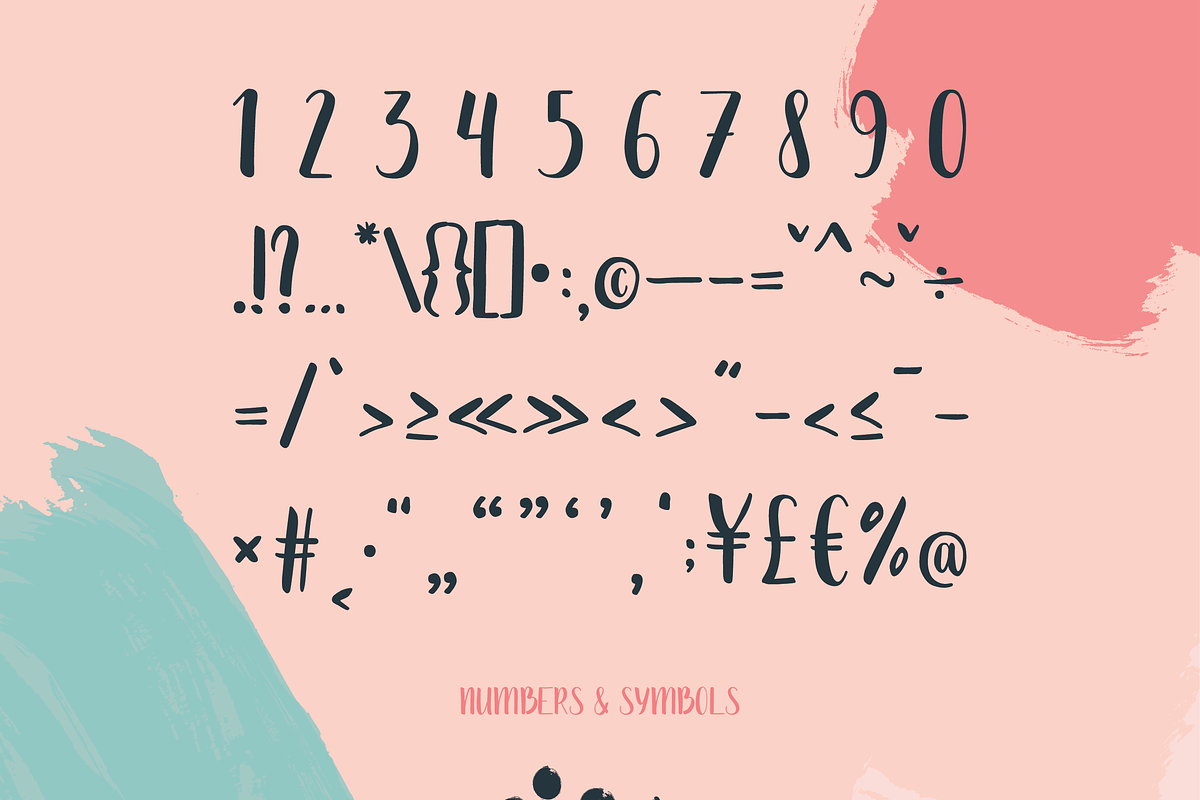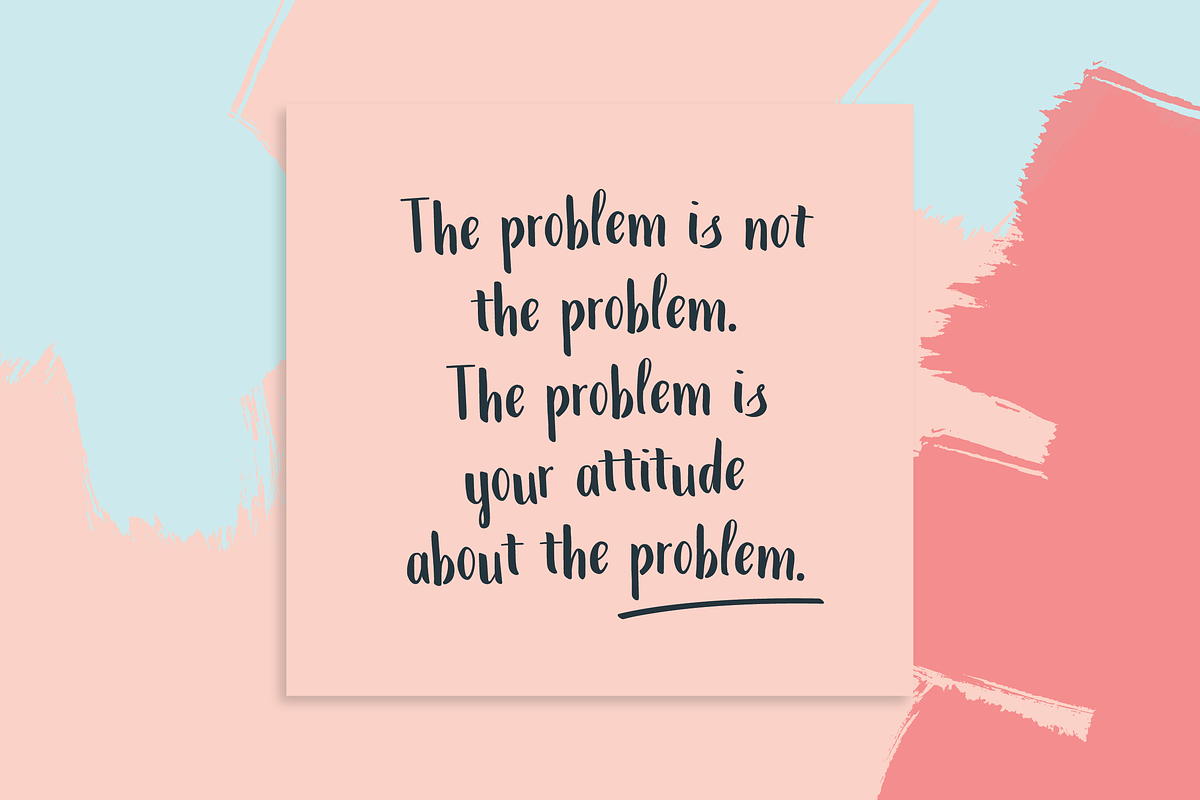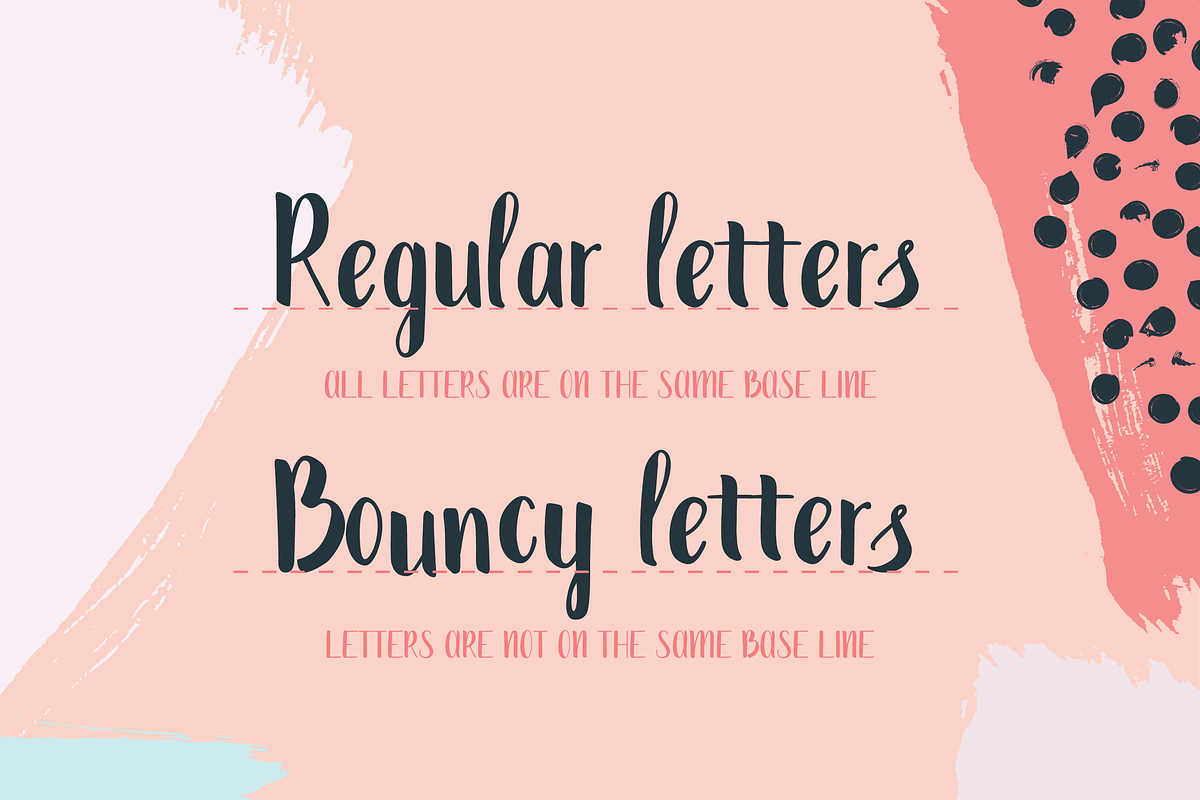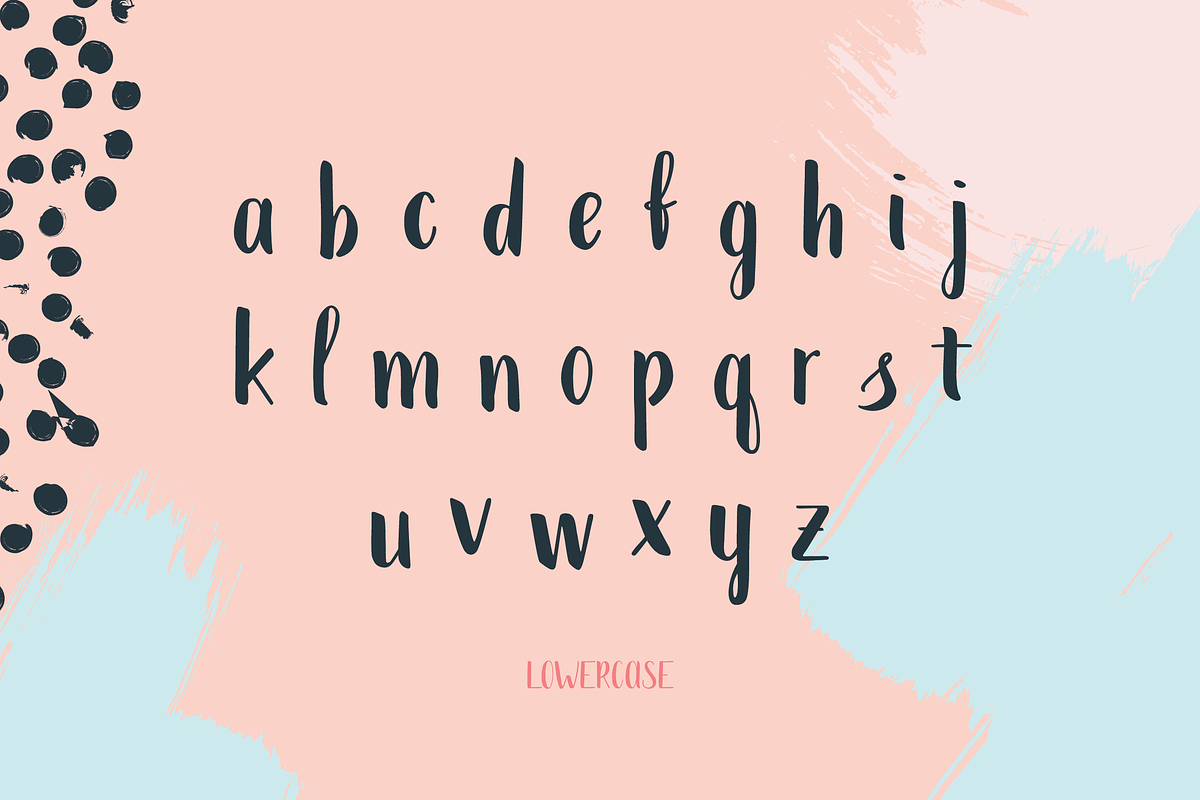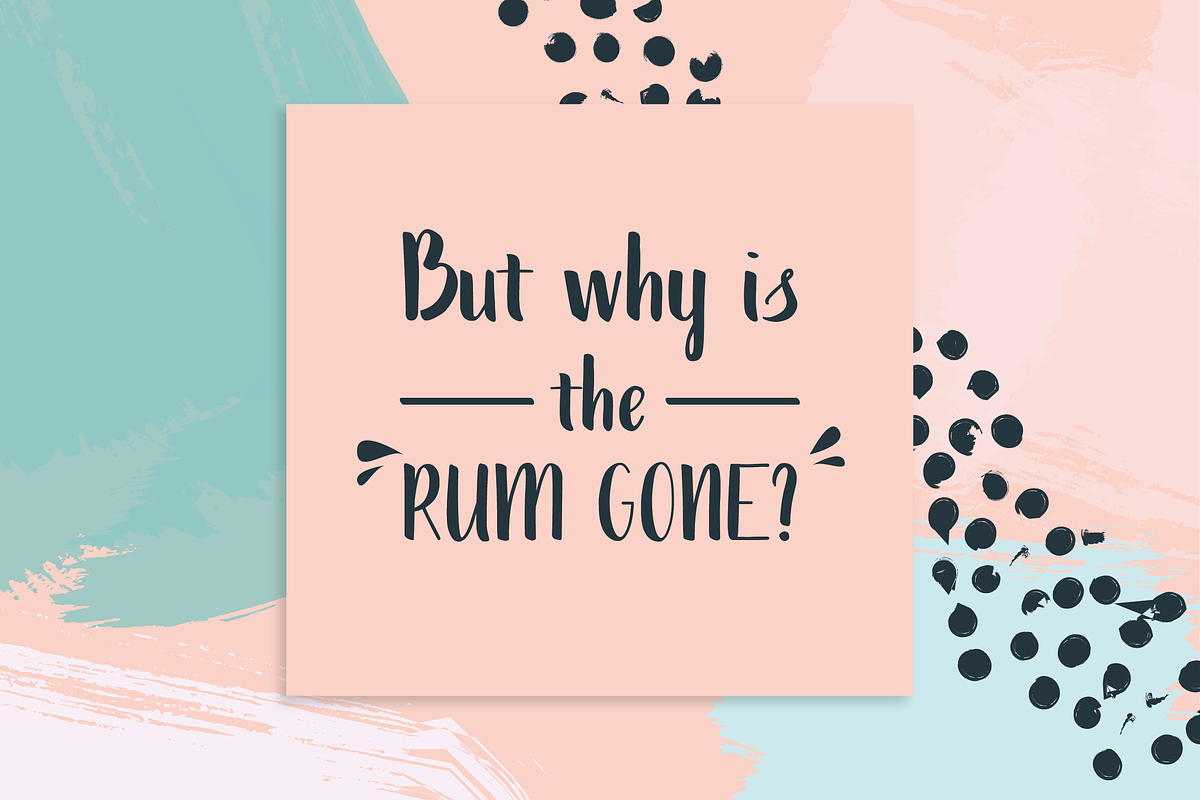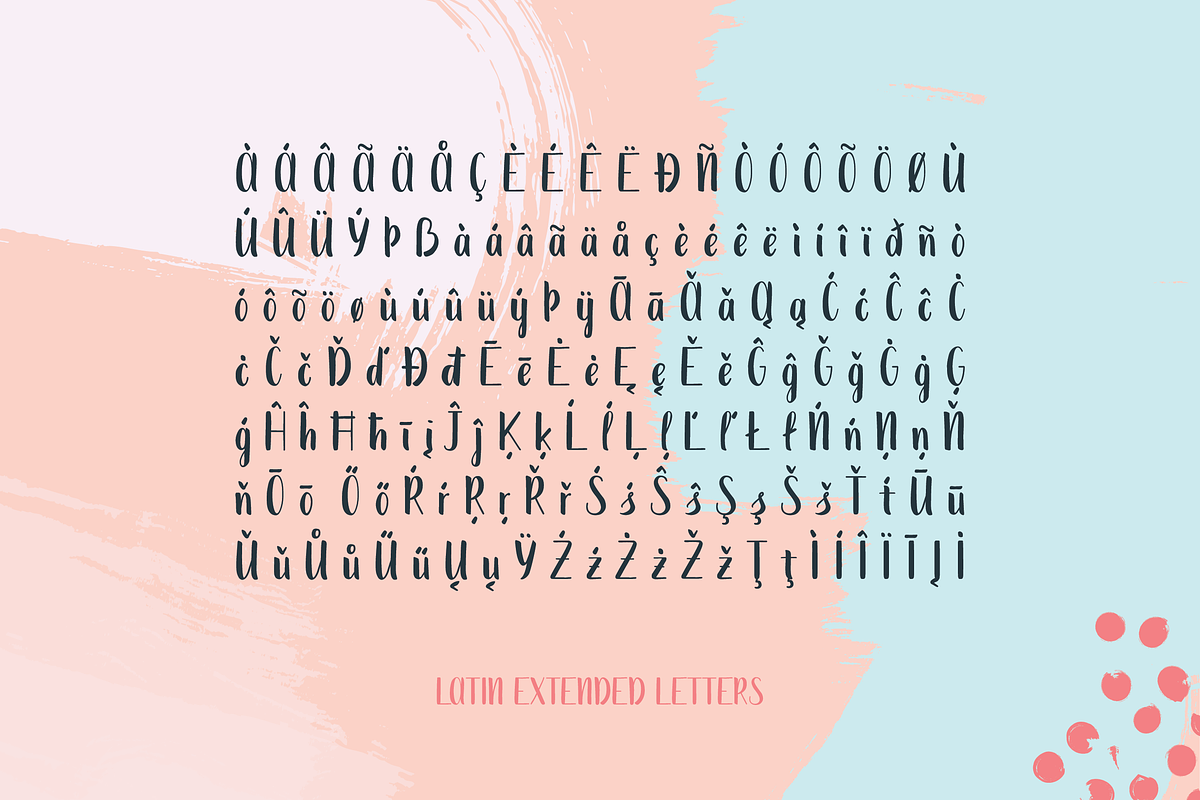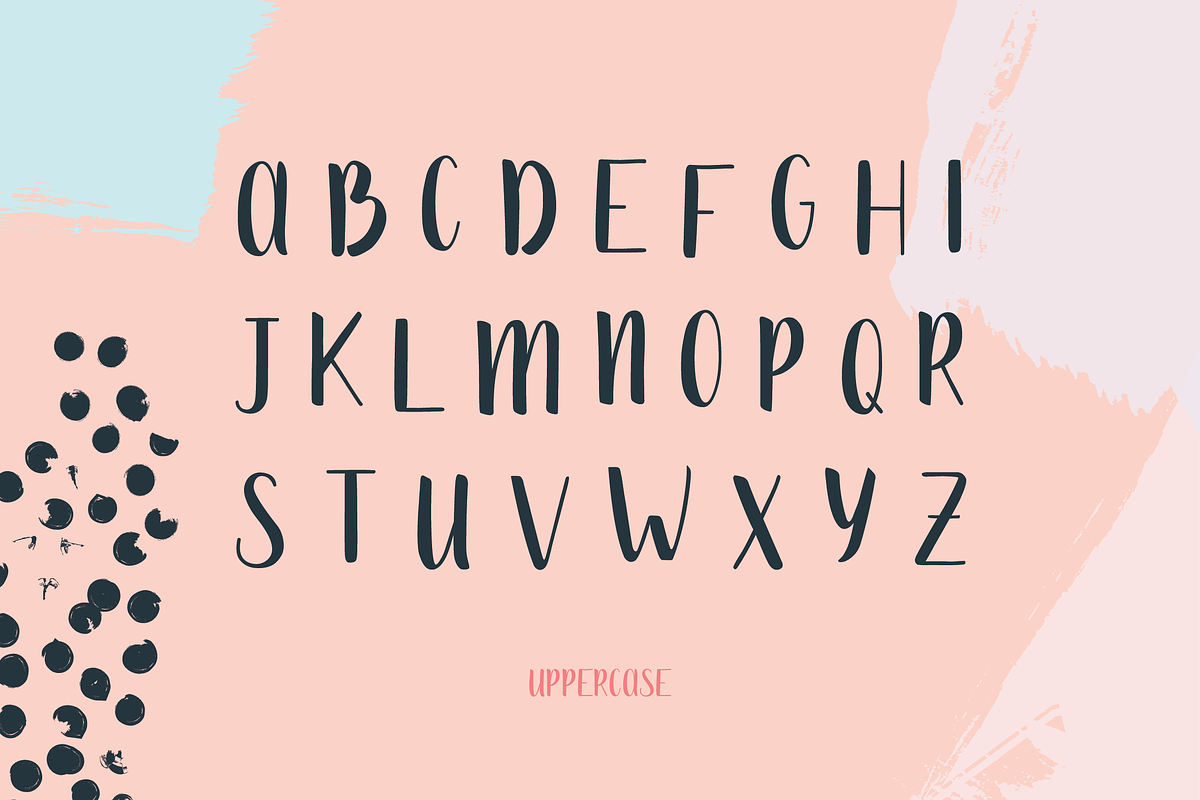
Mona Extended Font
Mona hand lettered extended font is a hand drawn brush font. It has contrasting thin and bold lines. It’s great for creating identities, logos, posters and packaging design.
The Font comes in two styles - regular and bouncy
Mona Extended Font by Wild Ones fits naturally into Branding, posters, packaging, typography.